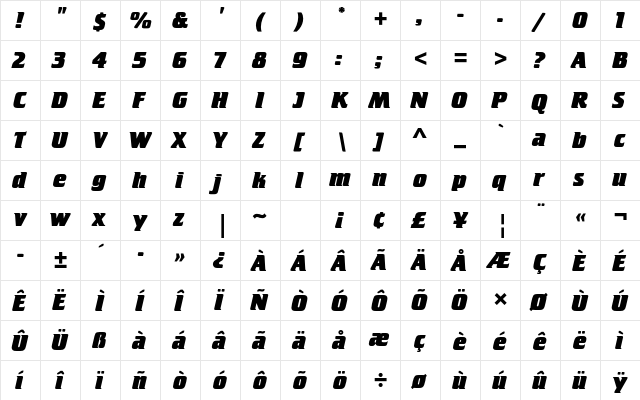
Crillee Extra Bold Italic Std Regular Font Preview
| Designer | Dick Jones |
Design Context for Crillee Extra Bold Italic Std Typeface
Crillee Extra Bold Italic Std takes a measured approach to typography — its balanced proportions and neutral character make it a reliable workhorse for both digital and print work. The slanted form adds forward momentum and visual energy. The heavy weight commands attention and anchors typographic hierarchies.
Pro Tip: Try Crillee Extra Bold Italic Std for annotation and caption copy alongside an upright companion — the contrast in angle creates a dynamic but ordered typographic system.